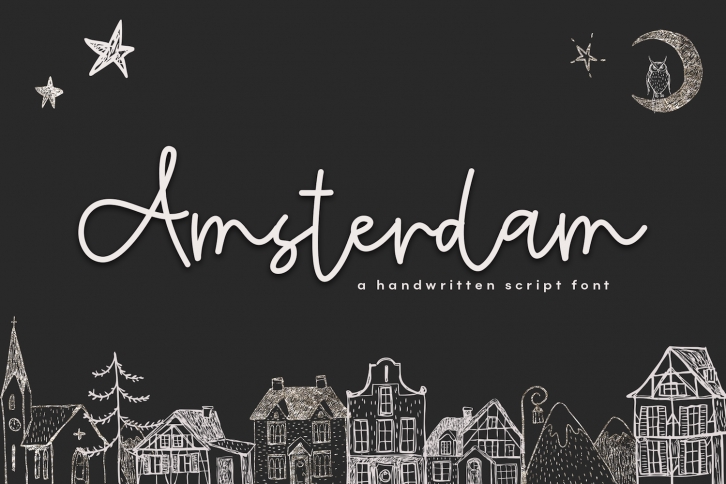
Amsterdam is a beautiful font that was designed by KA Designs. It's a great choice for designers and creatives who need such a font. It was released on January 2, 2019 and the file size is 11.3 MB. Amsterdam may give a more youthful, expressive and casual look to your project. It is a very beautiful, refined, elegant, and high-quality font.